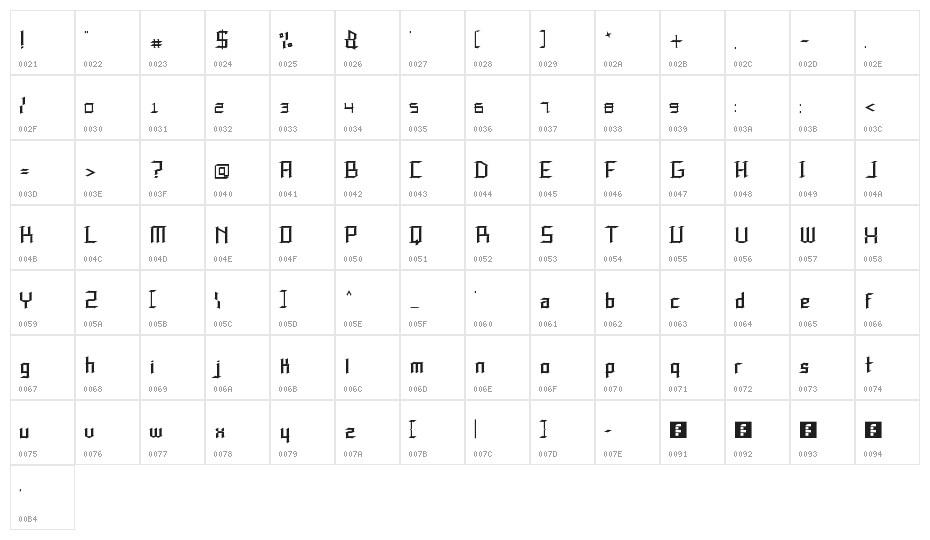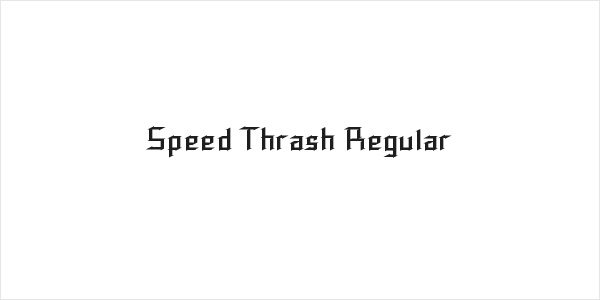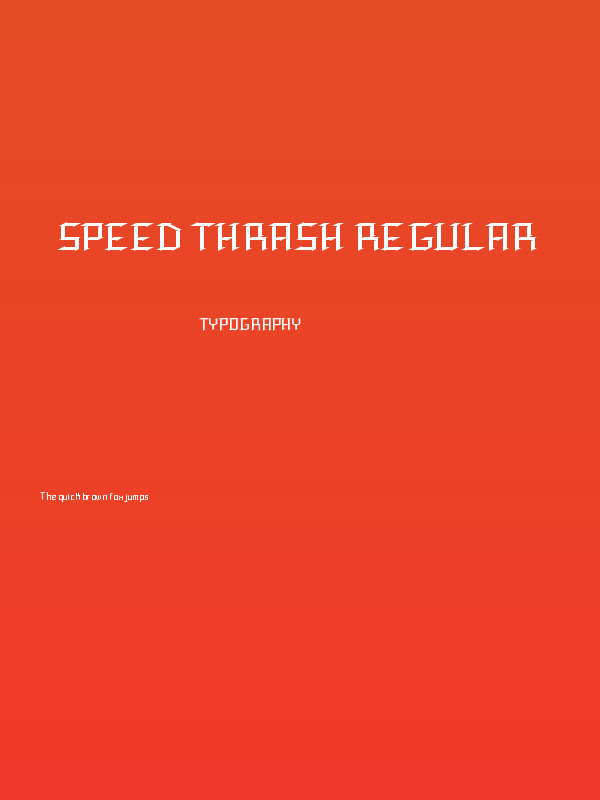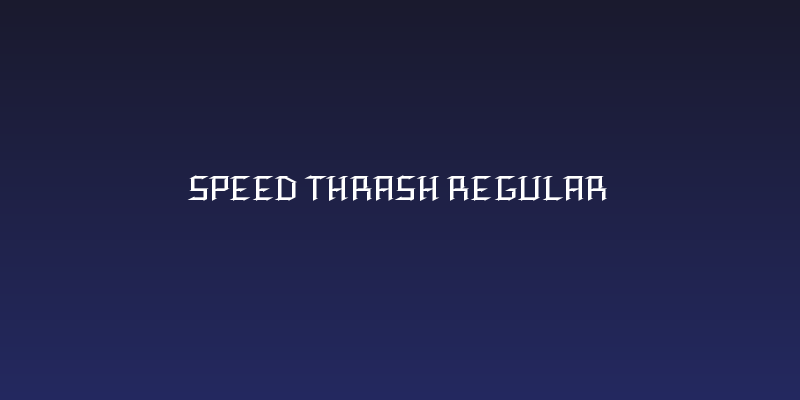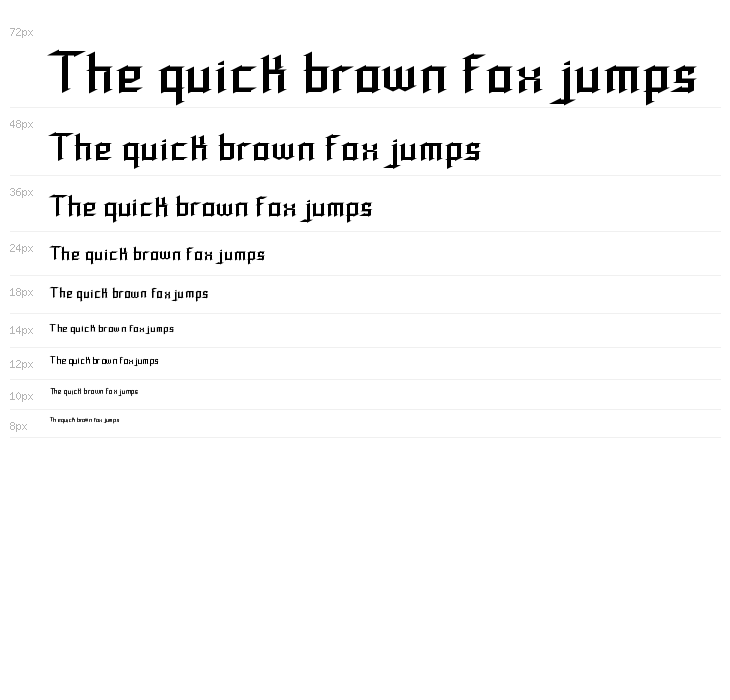
Speed Thrash Regular Font
Speed Thrash Regular Description
This font features a bold, angular design with sharp edges and a distinct, aggressive style. The uppercase letters are characterized by their geometric forms, with pointed serifs and a strong presence. The lowercase letters maintain the same angular aesthetic, providing a cohesive look across all characters. Numbers and special characters follow the same design principles, ensuring consistency throughout. The font's unique style makes it stand out, with a modern yet edgy feel that is perfect for attention-grabbing designs.
| Overall Style | Modern, Edgy |
| Proposed Projects | Ideal for music album covers, posters, logos, and any design requiring a bold, edgy aesthetic. |